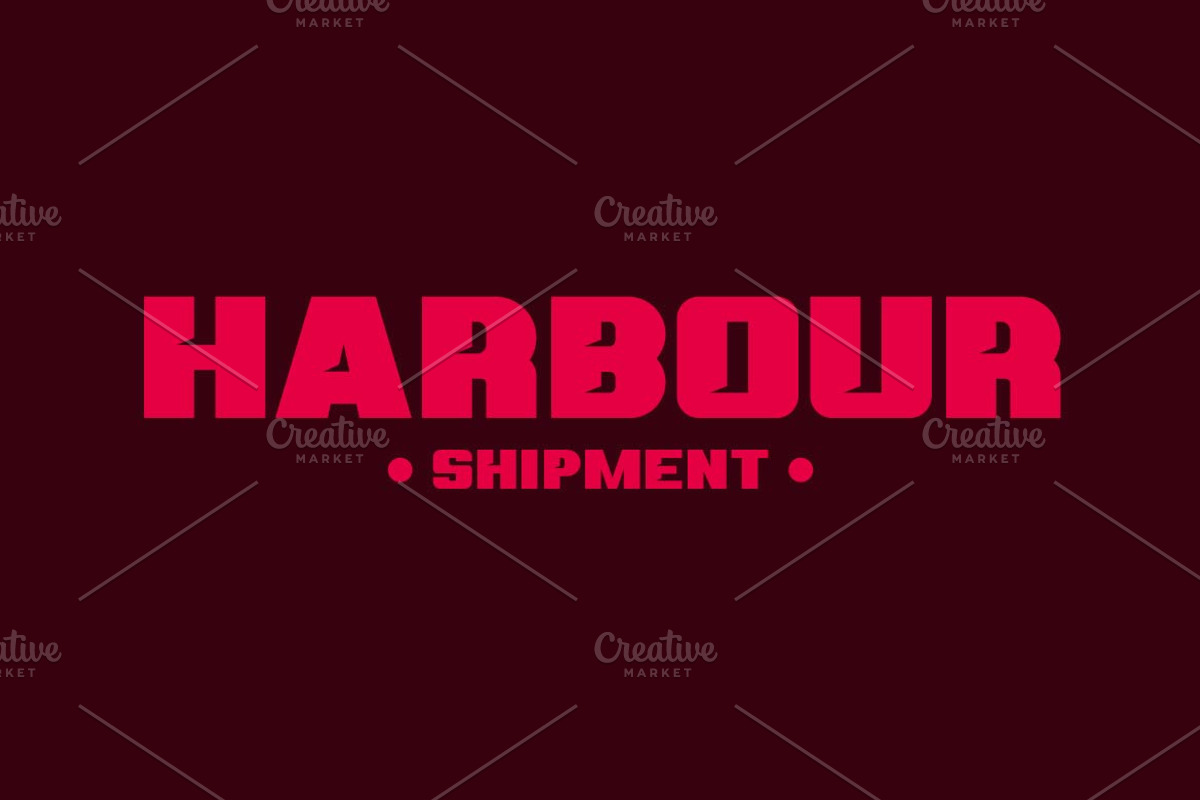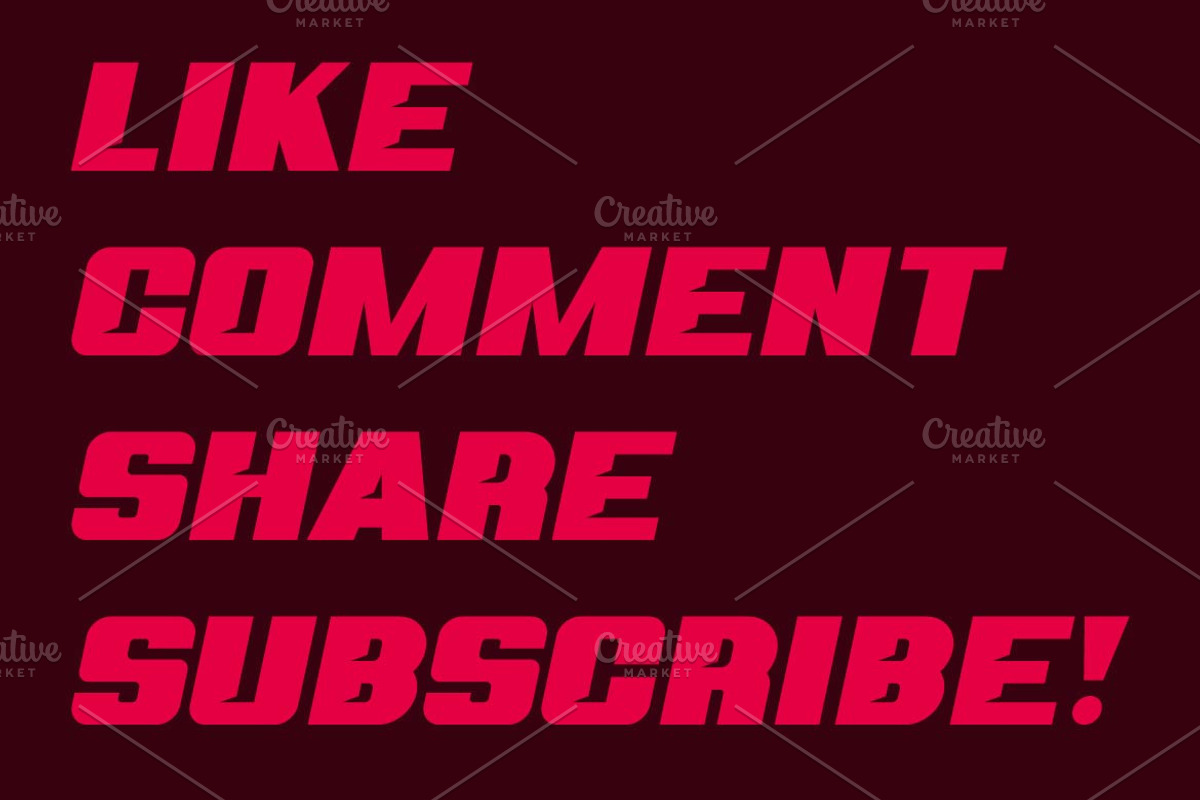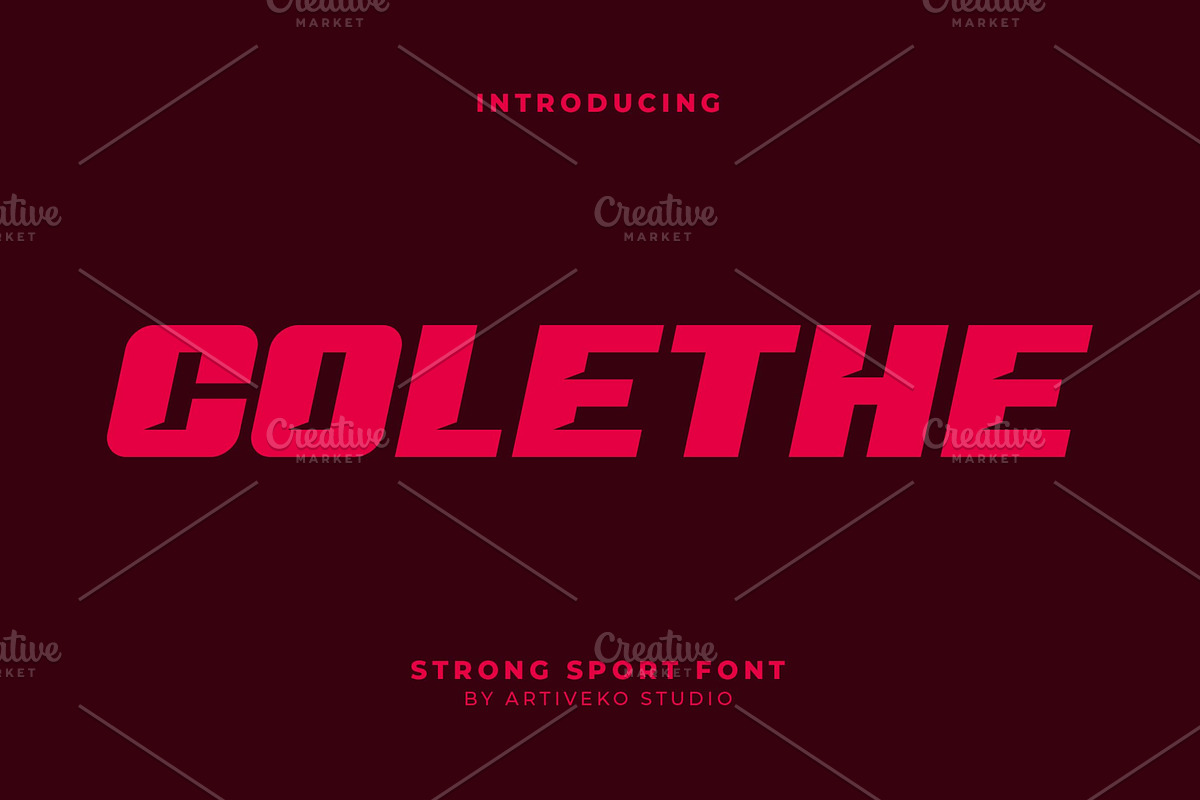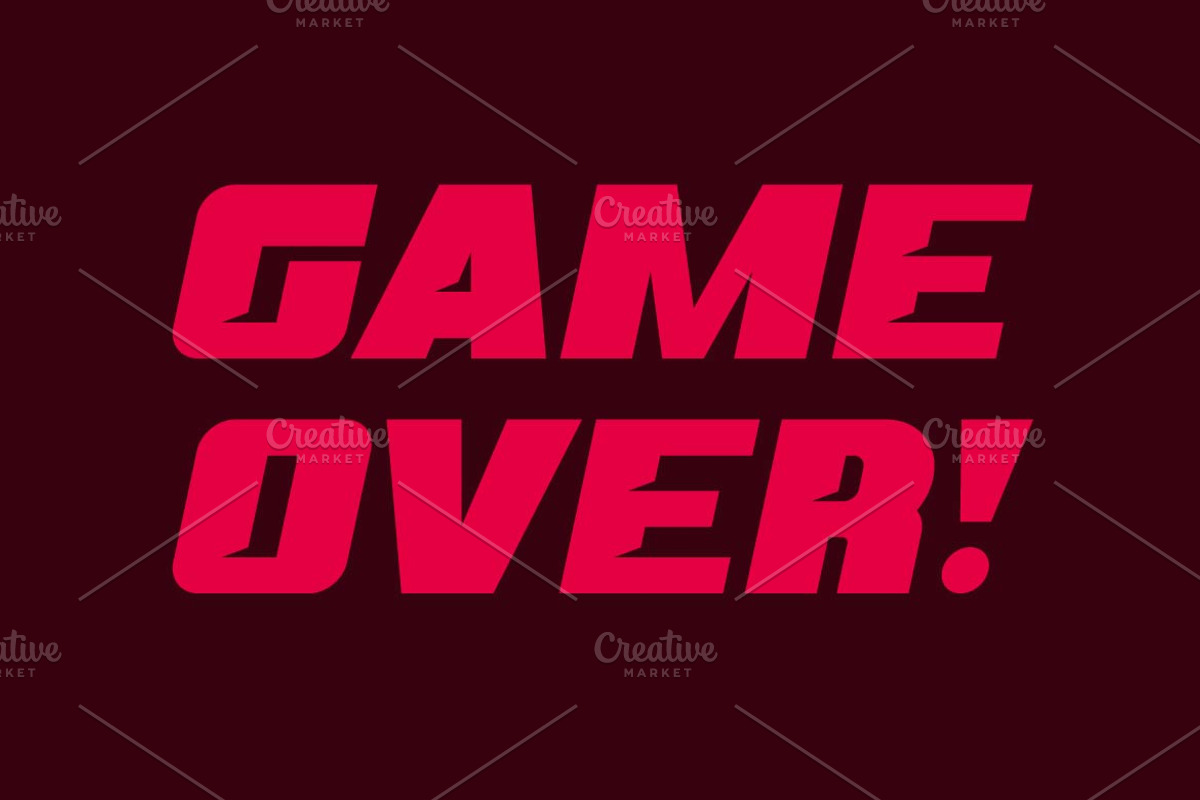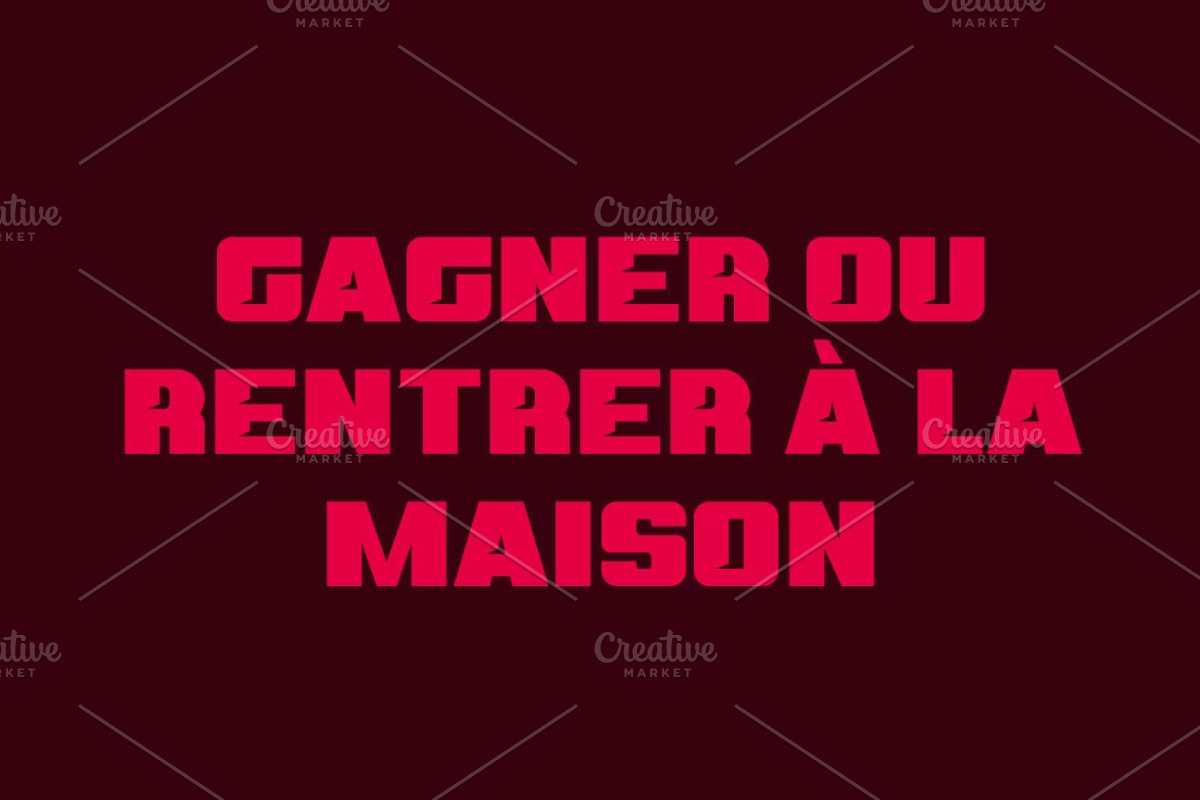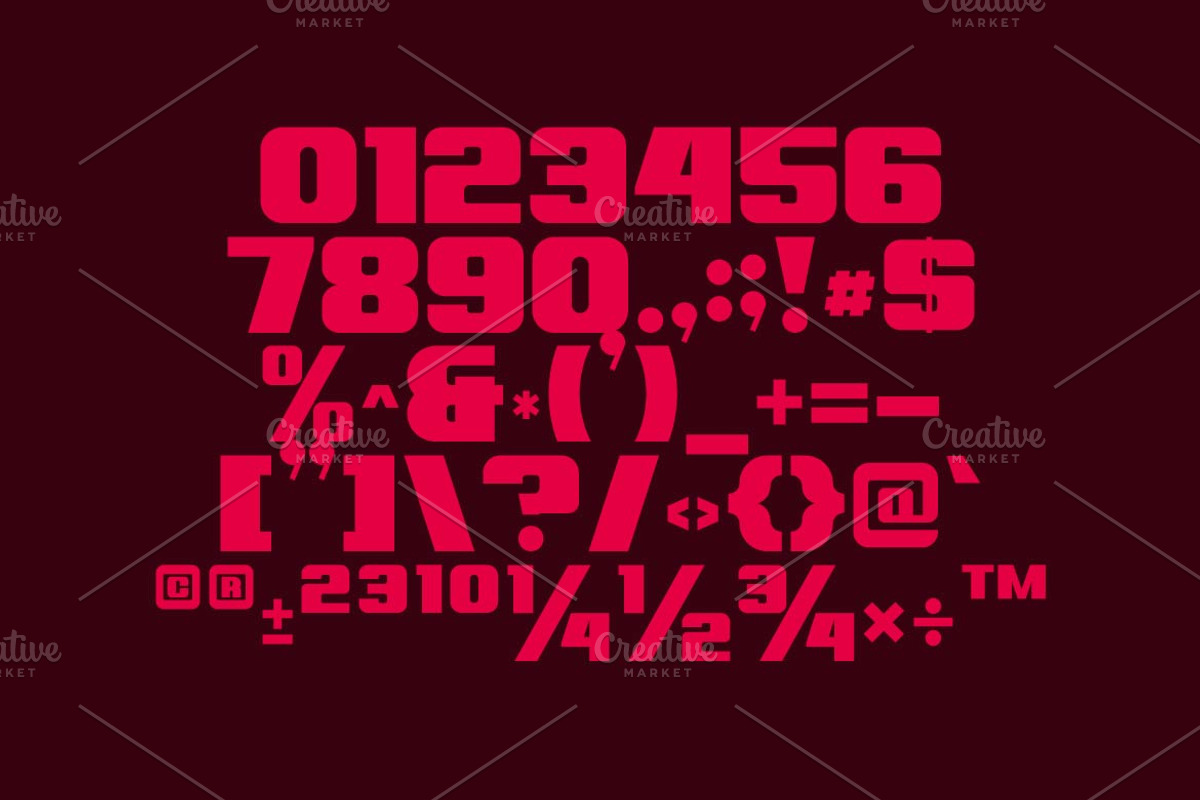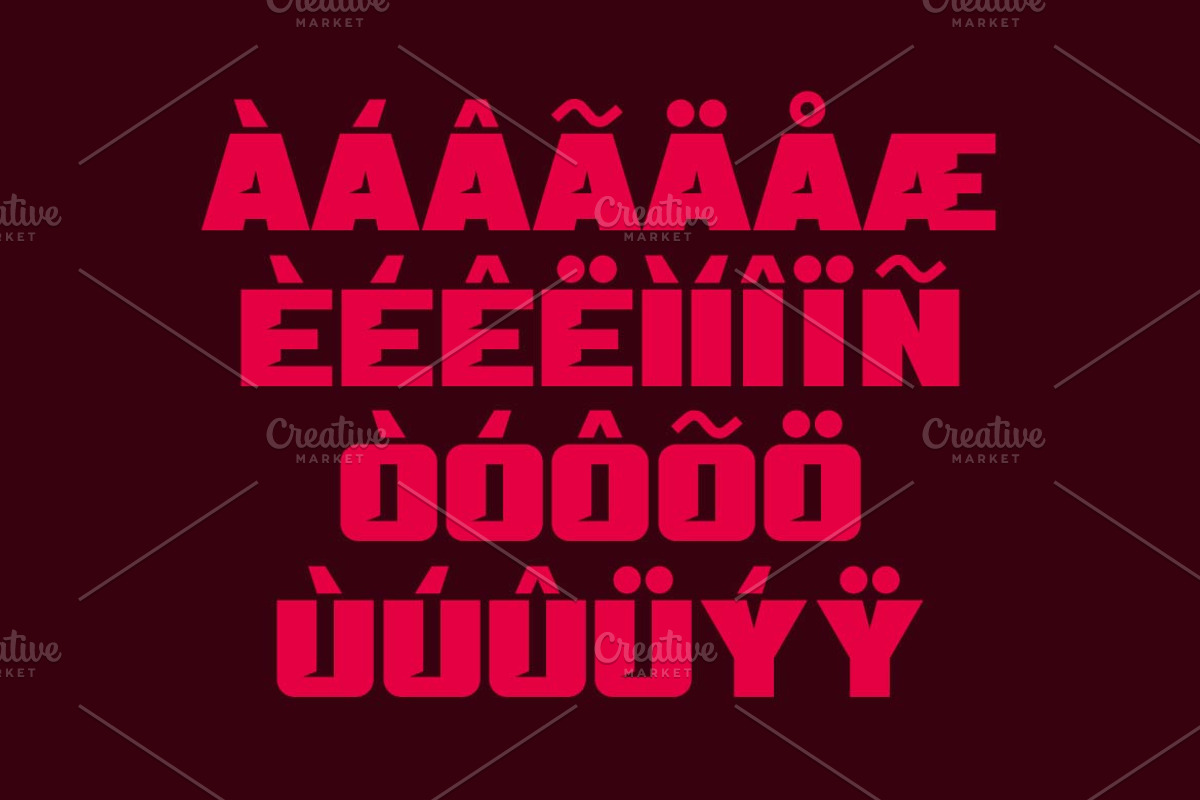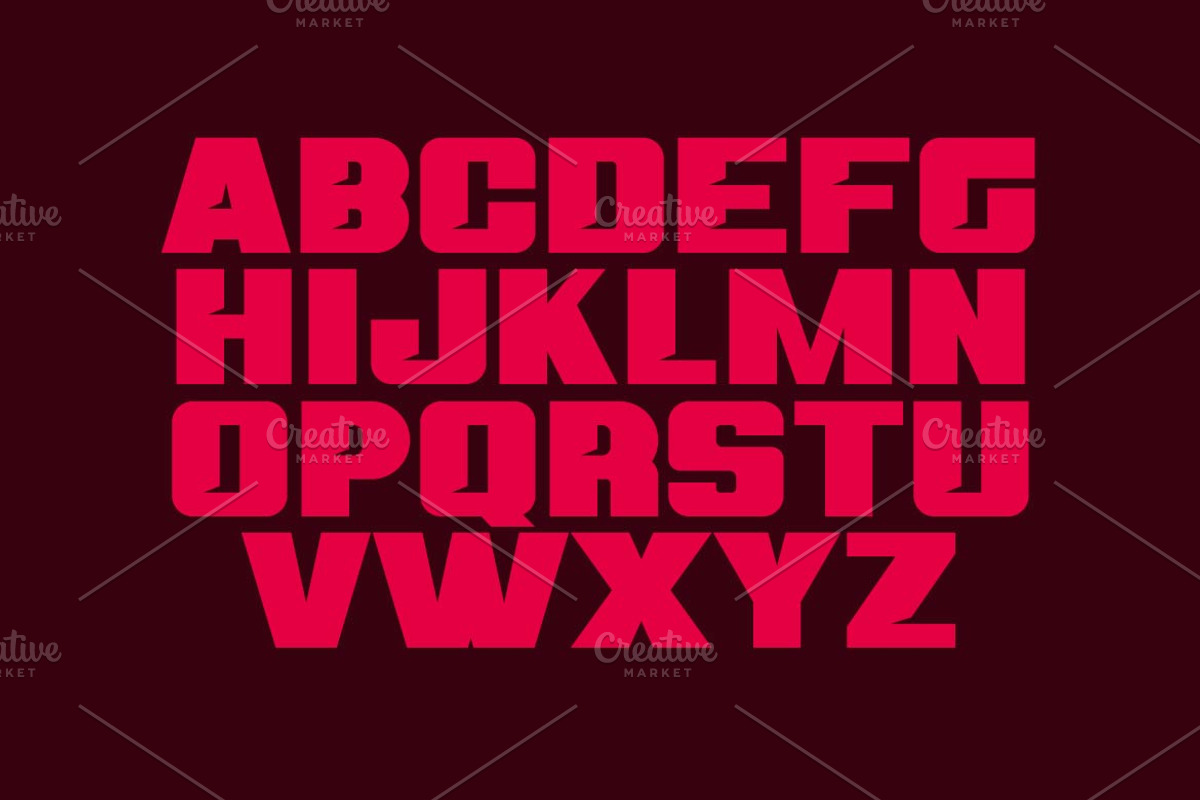
Colethe Strong Bold Sans Font
Colethe is a strong bold sans serif font designed with powerful letterforms that exude confidence and impact. Perfect for branding, sports, posters, and headline designs, Colethe delivers a modern and commanding aesthetic. Featuring multilingual support, ligatures, and alternates, this versatile typeface ensures readability and strength, making it an ideal choice for projects that demand boldness and presence.